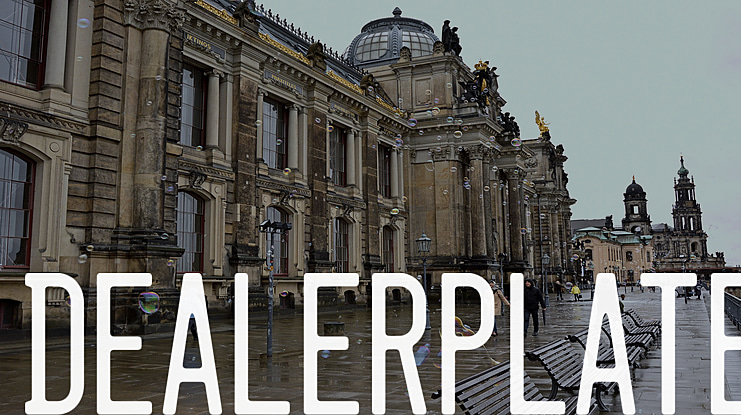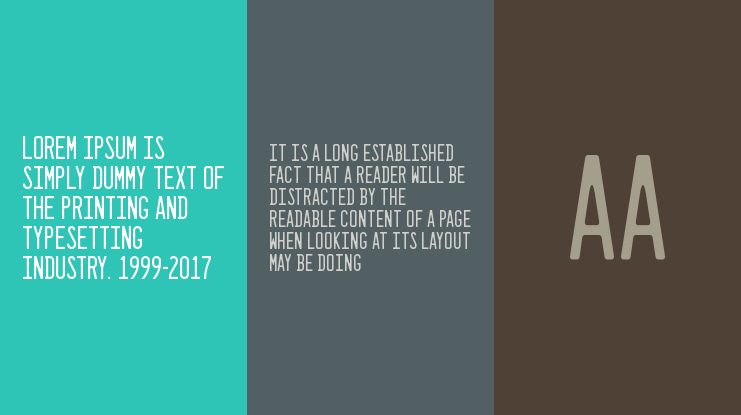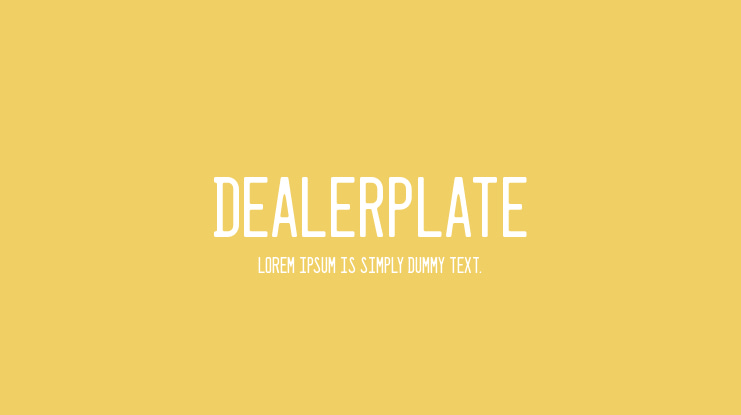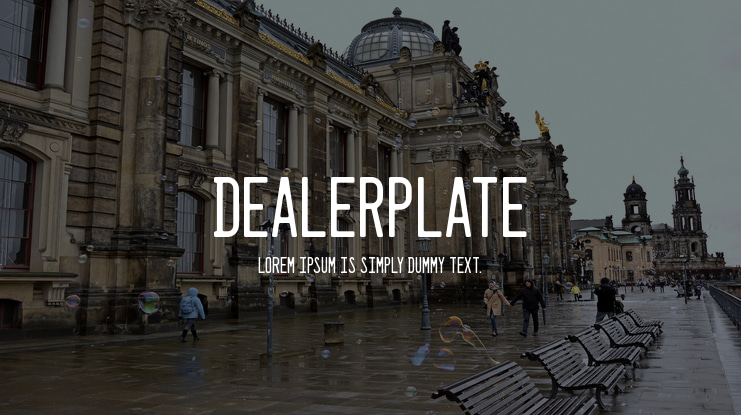
Dealerplate Font
Dealerplate is a series of 17 fonts based on various embossed license plates in the United States and Canada. Most Dealerplate fonts feature the most recent embossed style as of 2019. To get a more authentic monospaced look, try turning off kerning. Almost all current Latin based languages are supported, including Vietnamese, Cyrillic languages and Greek. The commercial use desktop license for Dealerplate California is free.
Dealerplate font preview
Dealerplate California font